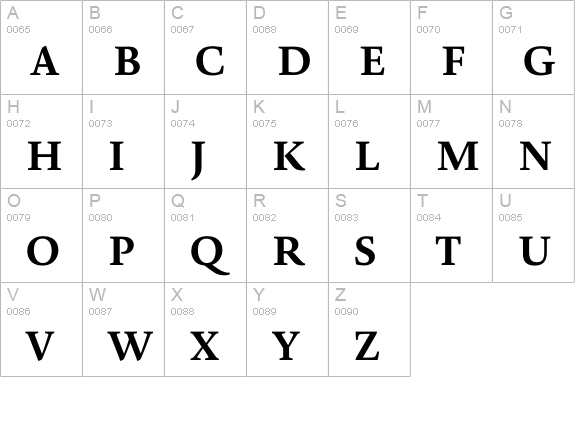
Novel Pro Bold is a strong, high-contrast variant in the Novel typeface family \xE2\x80\x94 well suited to headlines, attention-grabbing titles, and strong calls-to-action.
Novel Pro Bold font is a modern and stylish typeface that exudes sophistication and elegance. With its strong and impactful design, this font is perfect for creating eye-catching titles, headlines, and branding materials. The bold and distinctive characters of Novel Pro Bold make it stand out in any project, adding a touch of class and professionalism. Best of all, Novel Pro Bold font is available for free download at FontsMarket.com. Whether you're a designer, a business owner, or a creative individual looking to elevate your projects, this font is a must-have in your collection. Download Novel Pro Bold today and unleash your creativity with this versatile and striking typeface.